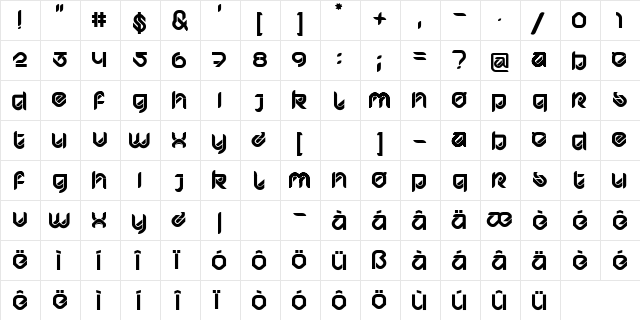
HYPD BD Bardust Remix Font Preview
HYPD BD Bardust Remix HYPD BD Bardust Remix
HYPD BD Bardust Remix Font Details
| Foundry | HYPD/Daniel Ross & Buro Destruct/Peter Korsman |
| Designer | Daniel Ross |
Design Context for HYPD BD Bardust Remix Typeface
HYPD BD Bardust Remix is a composed and adaptable typeface that performs quietly and consistently across a wide range of design contexts. Its bold stroke weight gives it real presence on the page.
Pro Tip: Pair HYPD BD Bardust Remix with a font of contrasting weight or personality to build a more expressive typographic hierarchy.